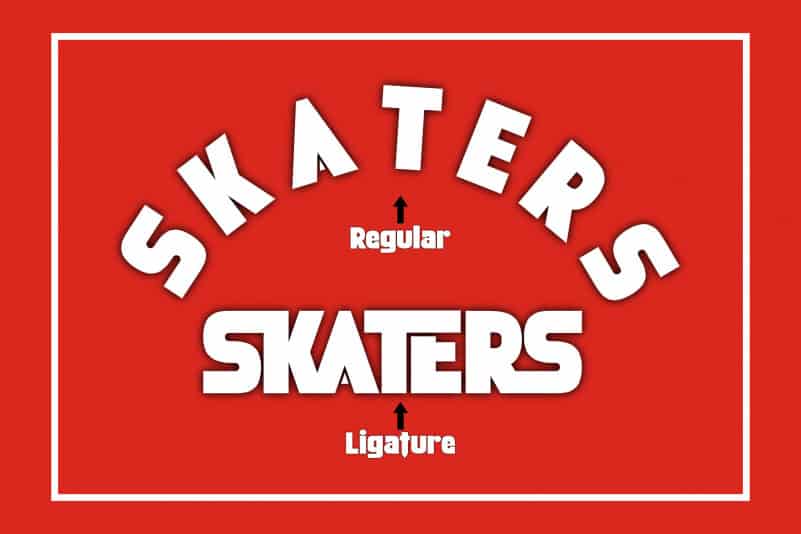
Skaters Display Font
Skaters Display Font is a simple, bold and chunky lettered display font. Use it for each of your casual designs and notice how it makes them stand out!